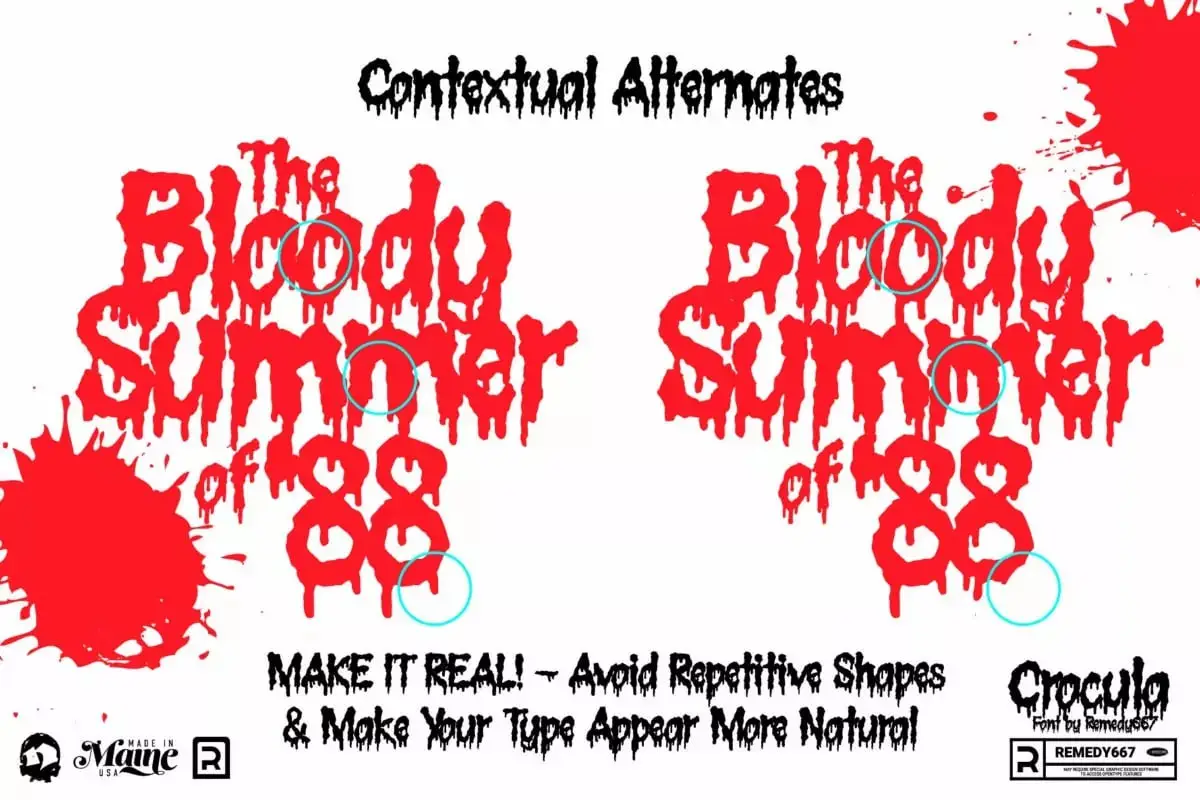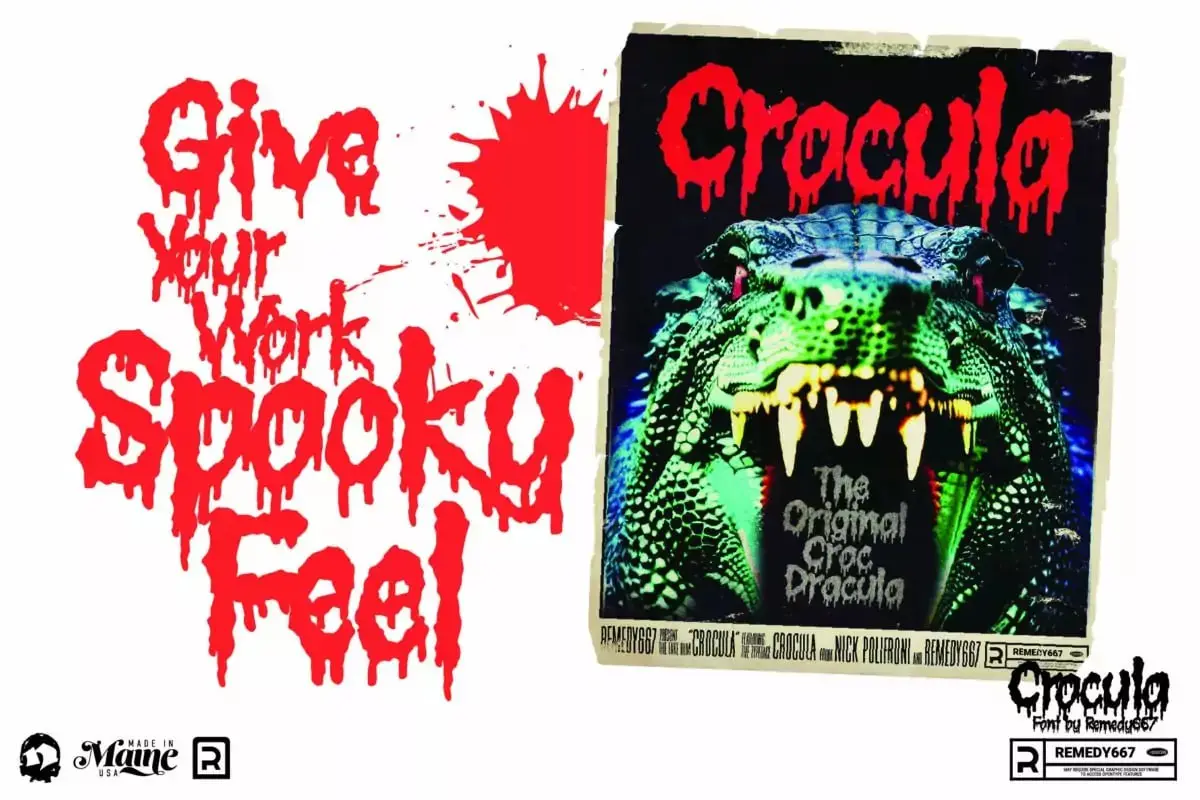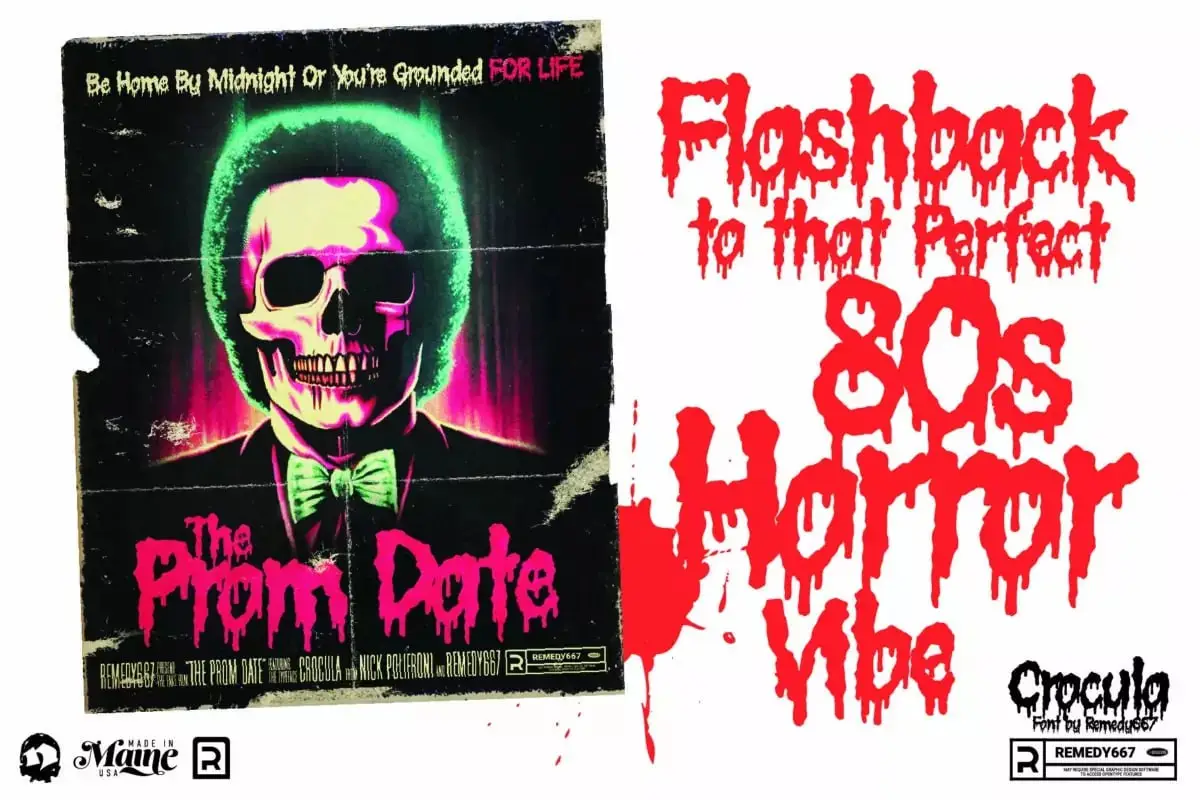
Crocula Font By Remedy
Introducing Crocula Font by Remedy, a versatile typeface designed to elevate your creative projects. This font features a unique blend of modern and classic styles, making it suitable for a variety of applications.
• Multiple weights for diverse usage
This font is perfect for branding, logos, web design, print materials, and user interfaces. Its unique character set adds a distinctive touch to any project.